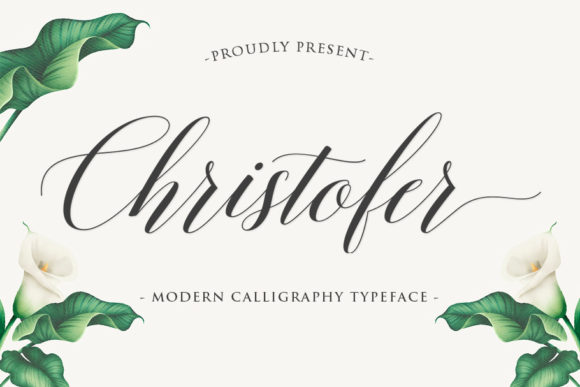
Unleash the Enchanting Charm of Christofer's Calligraphic Elegance
Journey into the world of Christofer, a script font family that echoes the whispers of romance and sweetness. Its characters, like delicate dancers, pirouette along the baseline, adding a touch of luxury and sophistication to every design project you embark upon.
With Christofer's PUA encoding, you gain effortless access to a treasure trove of captivating glyphs and ligatures, ready to transform your creative visions into captivating realities. Whether you seek to craft enchanting invitations, heartfelt greeting cards, or alluring branding materials, Christofer stands as your steadfast companion, guiding you towards design excellence.
Embrace the allure of Christofer's meticulously crafted strokes, each meticulously shaped to evoke a sense of timeless elegance. Its flowing curves and graceful flourishes lend an air of refinement to your creations, captivating the hearts of your audience.
Step into a realm where beauty and functionality harmoniously intertwine. Christofer's versatility extends far beyond its romantic charm, seamlessly adapting to a multitude of design endeavors. From modern websites to heartfelt blog posts, from eye-catching social media graphics to unforgettable packaging designs, Christofer effortlessly elevates your projects to new heights of visual appeal.
Indulge in the boundless creative possibilities that await you with Christofer. Its intuitive nature welcomes both seasoned designers and those just beginning their creative journey. Let your imagination soar as you explore the endless opportunities to infuse your designs with a touch of elegance and timeless beauty.